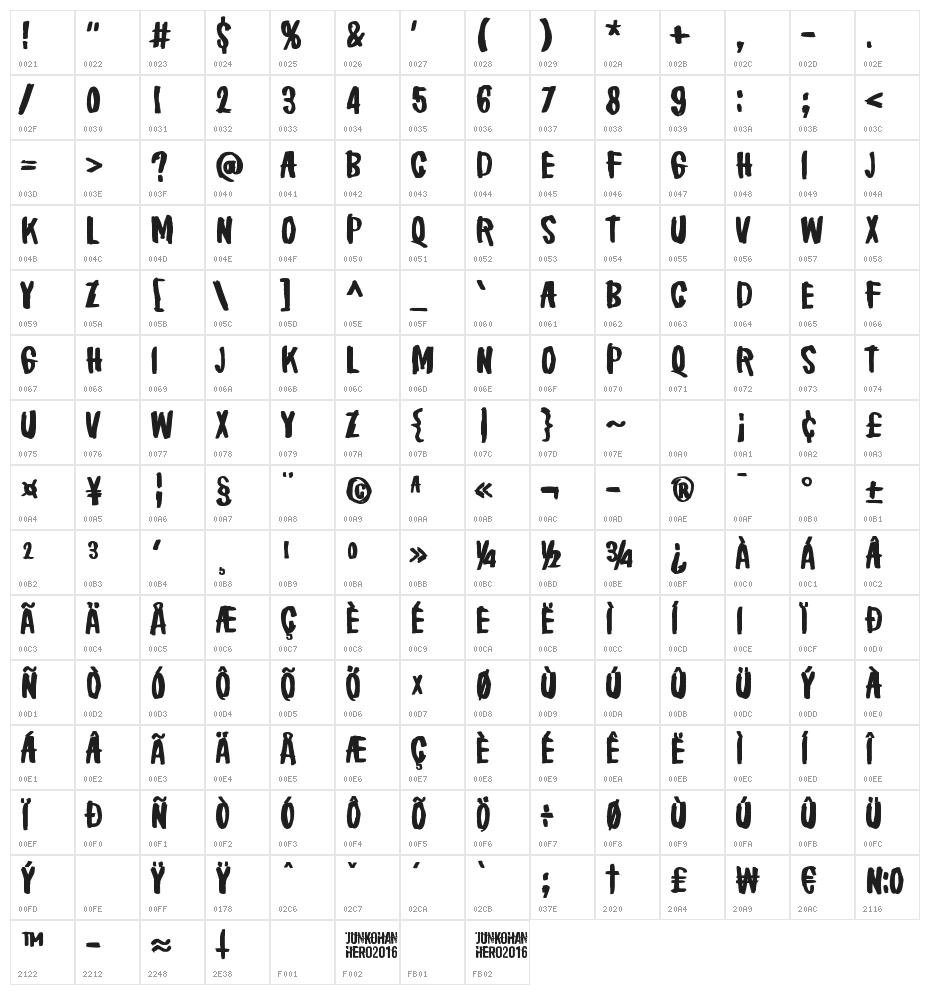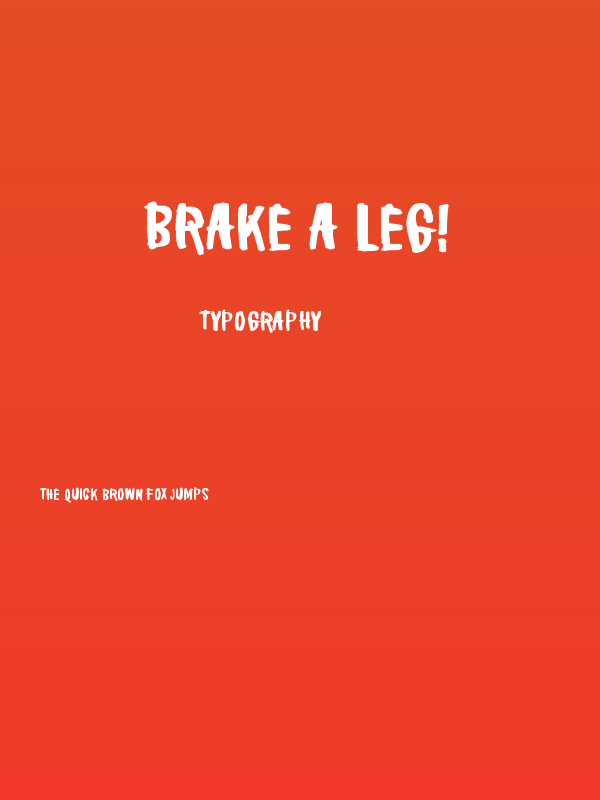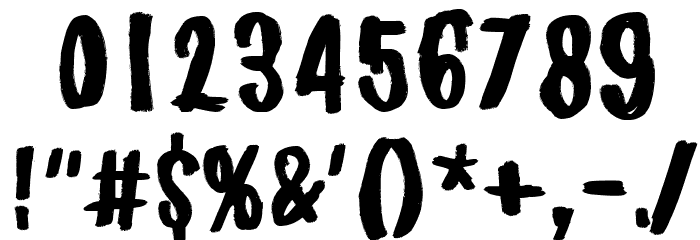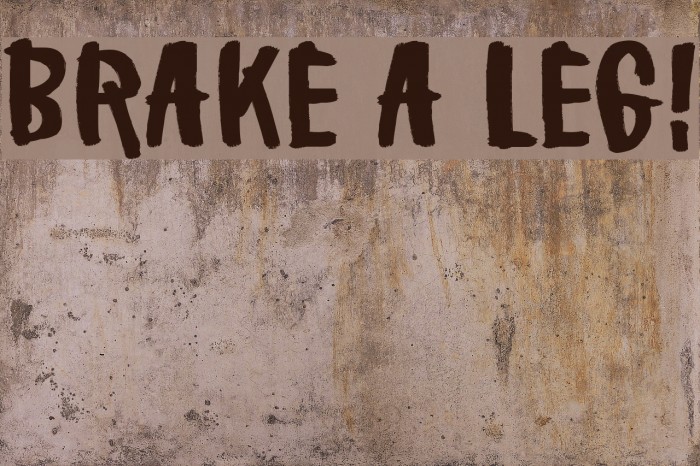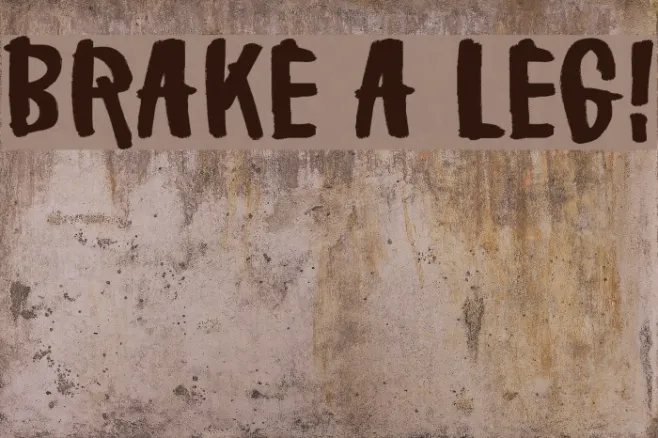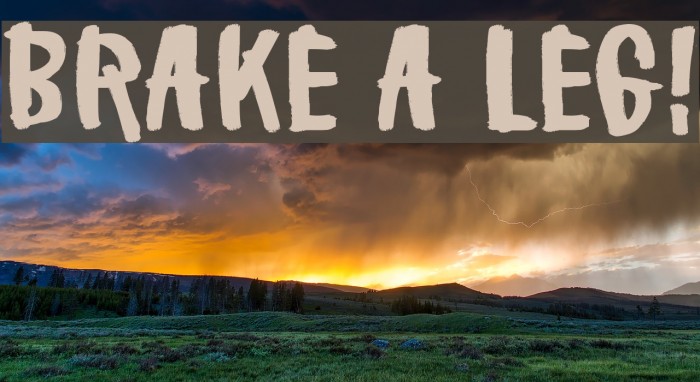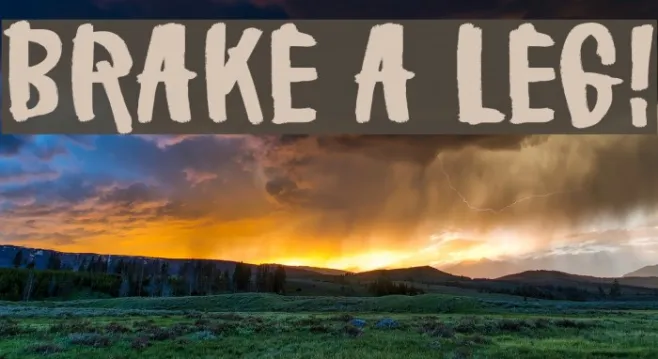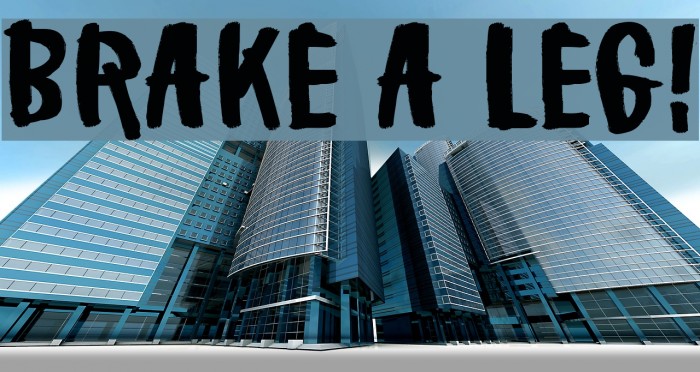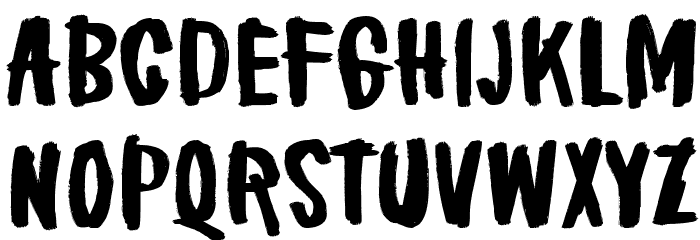
Brake a leg! Font
Brake a leg! Description
This font exudes a bold and expressive style, characterized by its thick, brush-like strokes that convey a sense of energy and dynamism. The letters are slightly irregular, giving it a handcrafted, artistic feel. The uppercase and lowercase letters maintain a consistent weight, while the numbers and special characters complement the overall aesthetic. Its bold appearance makes it stand out, perfect for projects that require a strong visual impact. The font's playful yet assertive nature makes it versatile for various creative applications.
| Overall Style | Modern, Artistic |
| Proposed Projects | Ideal for posters, branding, packaging, and any design that requires a strong, artistic touch. |